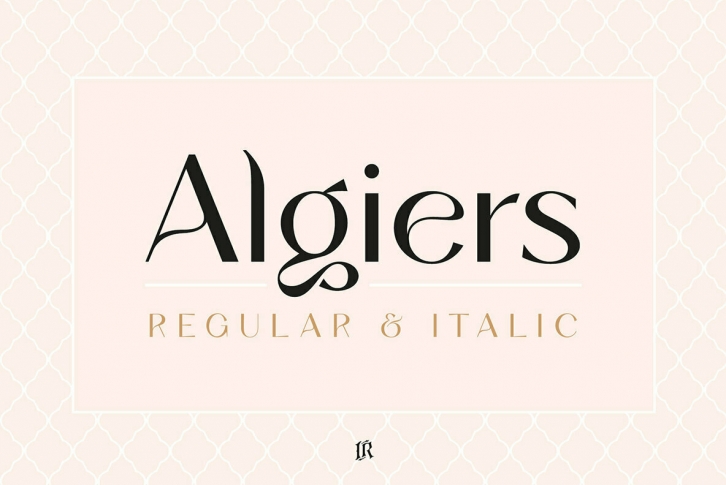
Algiers is a modern sans-serif font inspired by luxury fashion brands. It looks amazing at display sizes and is easily readable in text size.
Algiers is a sans serif font made mainly for headlines, titles, and other short texts and is well-suited for advertising, fashion mood board, branding, logotypes, packaging, titles, editorial design and modern and social media.